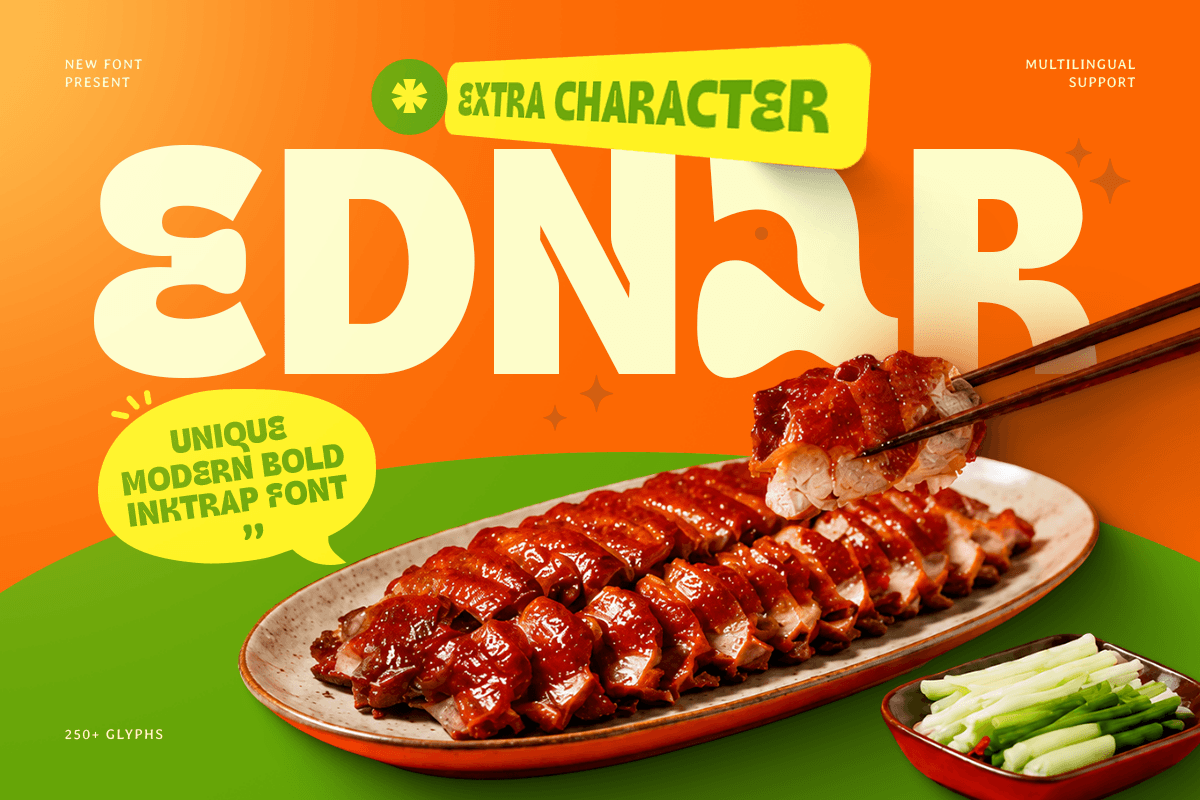
Ednar
-Unique Modern Bold Inktrap Font
Ednar
Ednar – Unique Modern Bold Inktrap Font
Ednar is a unique modern bold inktrap font designed with distinctive details and a powerful visual personality. Inspired by contemporary typography and classic inktrap techniques, Ednar features bold shapes, refined cuts, and carefully crafted letterforms that create a stylish yet highly readable appearance.
Perfect for modern branding, logos, posters, packaging, editorial layouts, headlines, and digital designs, Ednar brings a strong identity to any creative project. Its bold structure and unique inktrap details make it an excellent choice for brands seeking a memorable and sophisticated typographic style.
From fashion labels and creative studios to product packaging and social media campaigns, Ednar offers a versatile solution for designers who want a modern display font with personality. Its balance of boldness and precision makes every composition feel confident and visually engaging.
Ednar – Unique Modern Bold Inktrap Font Features
• Unique bold inktrap letterforms with modern character
• Distinctive details for memorable branding projects
• Perfect for logos, headlines, posters, and packaging
• Designed for digital and print applications
• Strong visual impact with excellent readability
• OpenType features for creative flexibility
Bring a bold and distinctive presence to your designs with Ednar – a modern inktrap font crafted for unforgettable branding and creative expression. ✨